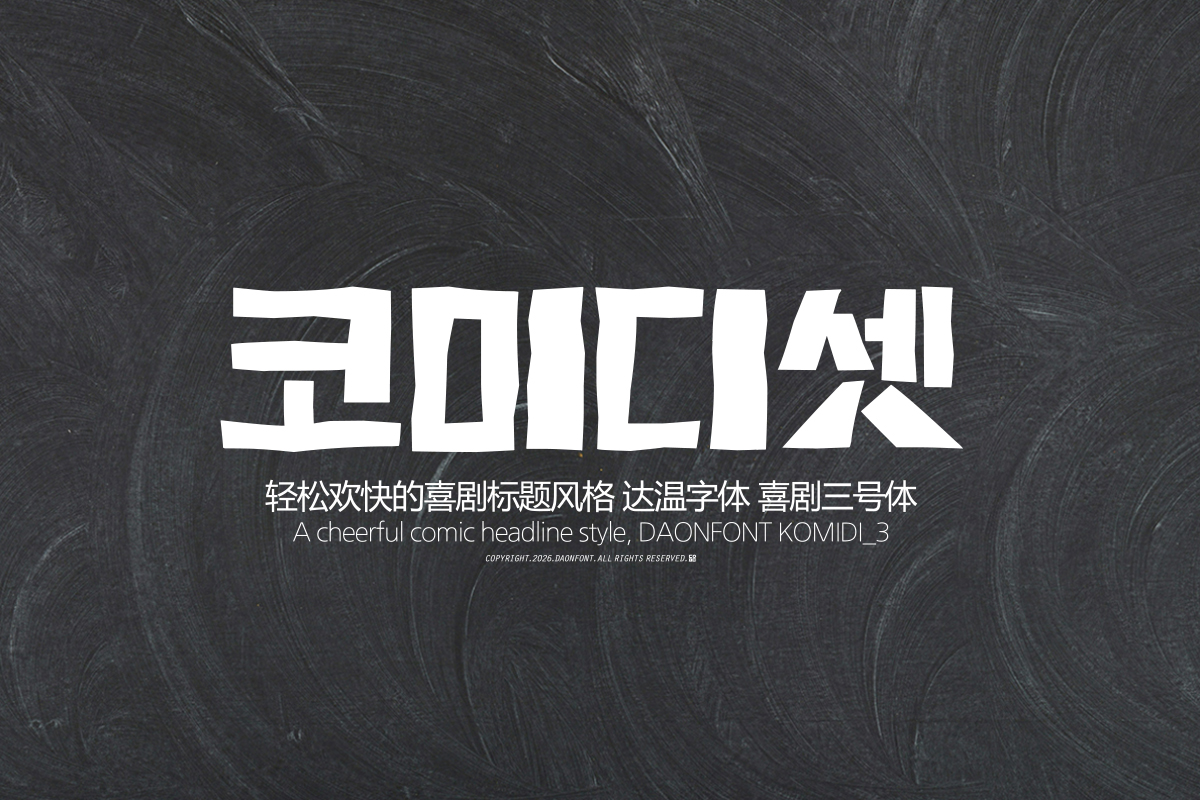
DAON kOMIDI3
True to its name, DaonFont 'KOMIDI3' is a Korean display typeface that expresses a bright and cheerful sensibility through typography. By capturing an atmosphere imbued with laughter and fun in its letter forms, it allows viewers to naturally feel a joyful mood. Going beyond simple information delivery, 'KOMIDI3' conveys eye-catching fun and a sense of rhythm. It is a Korean typeface collection suitable for headline work that requires a visually vibrant atmosphere.